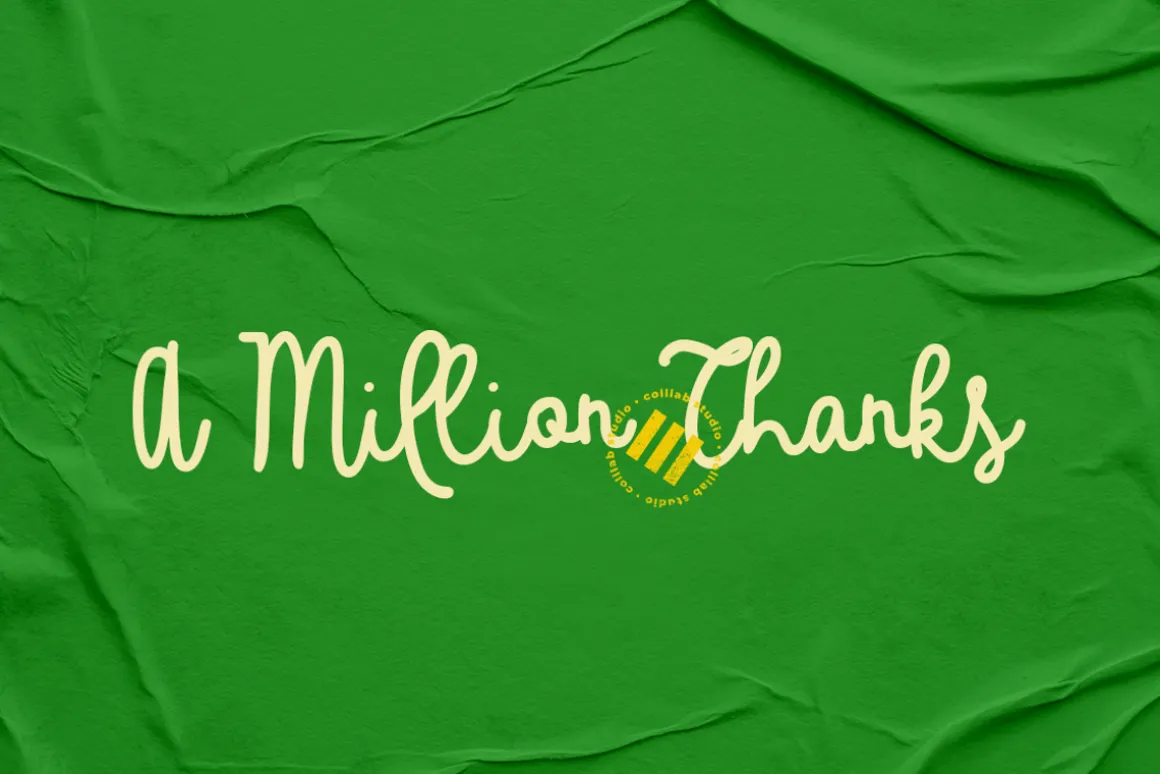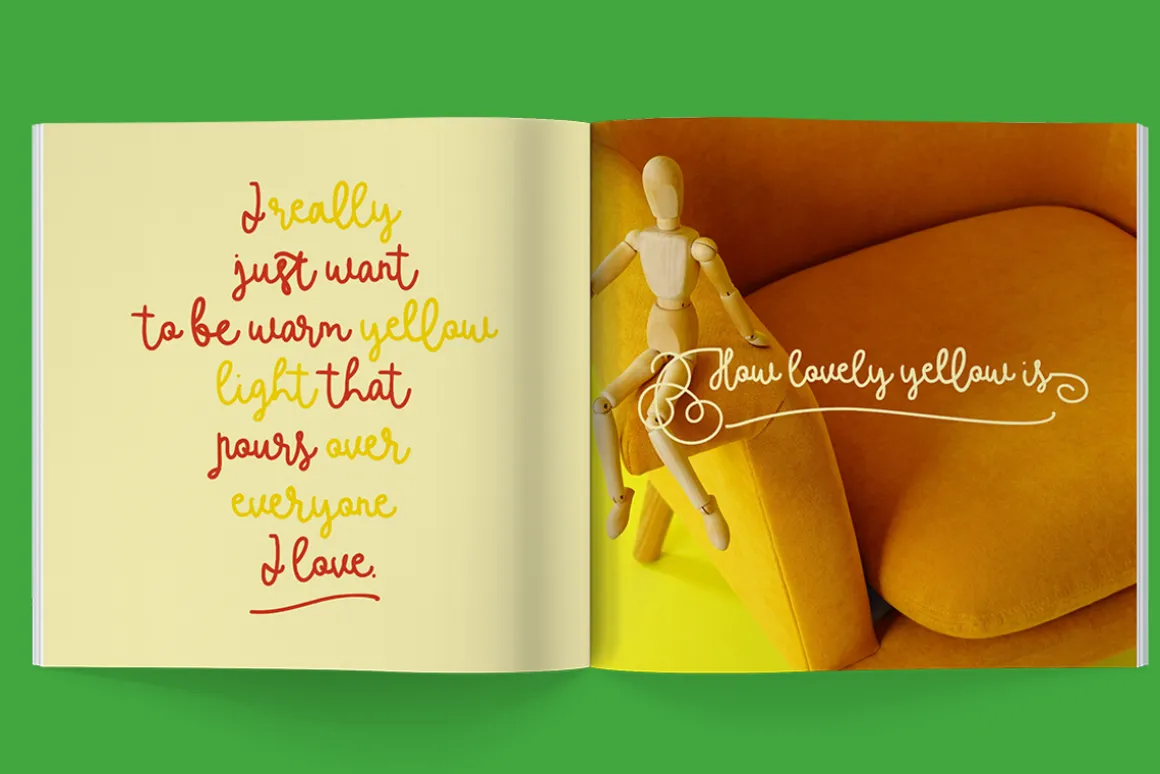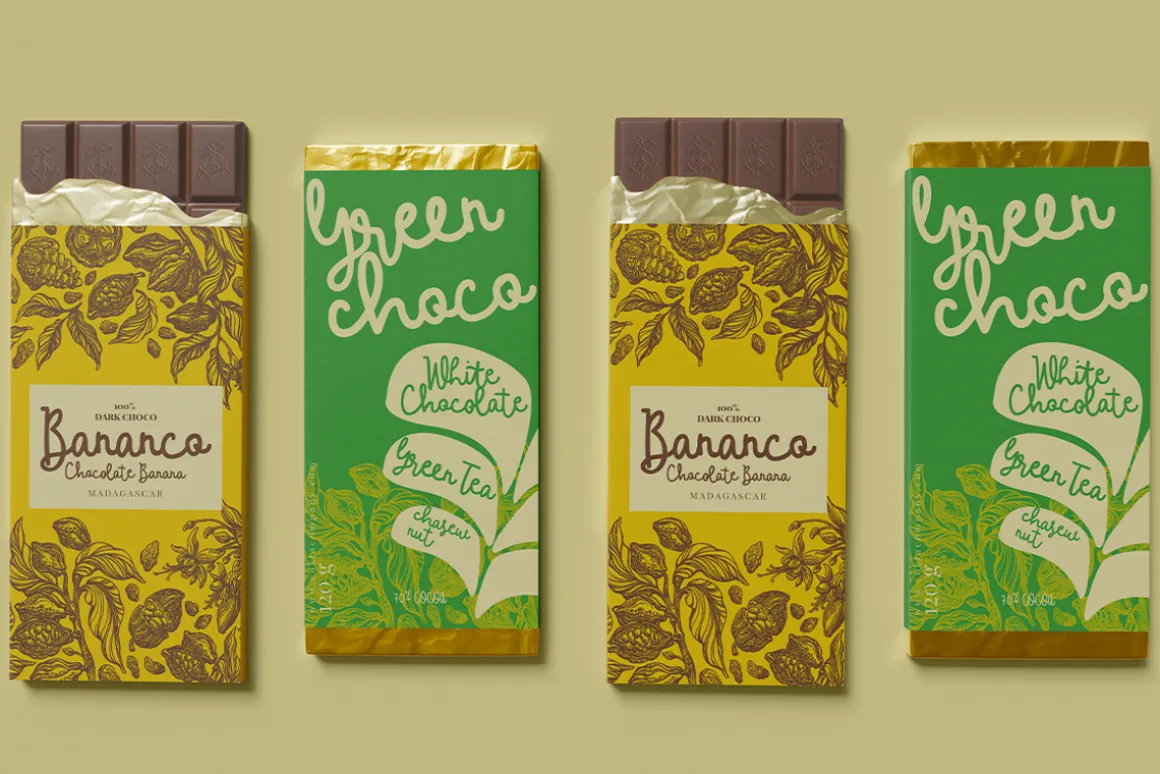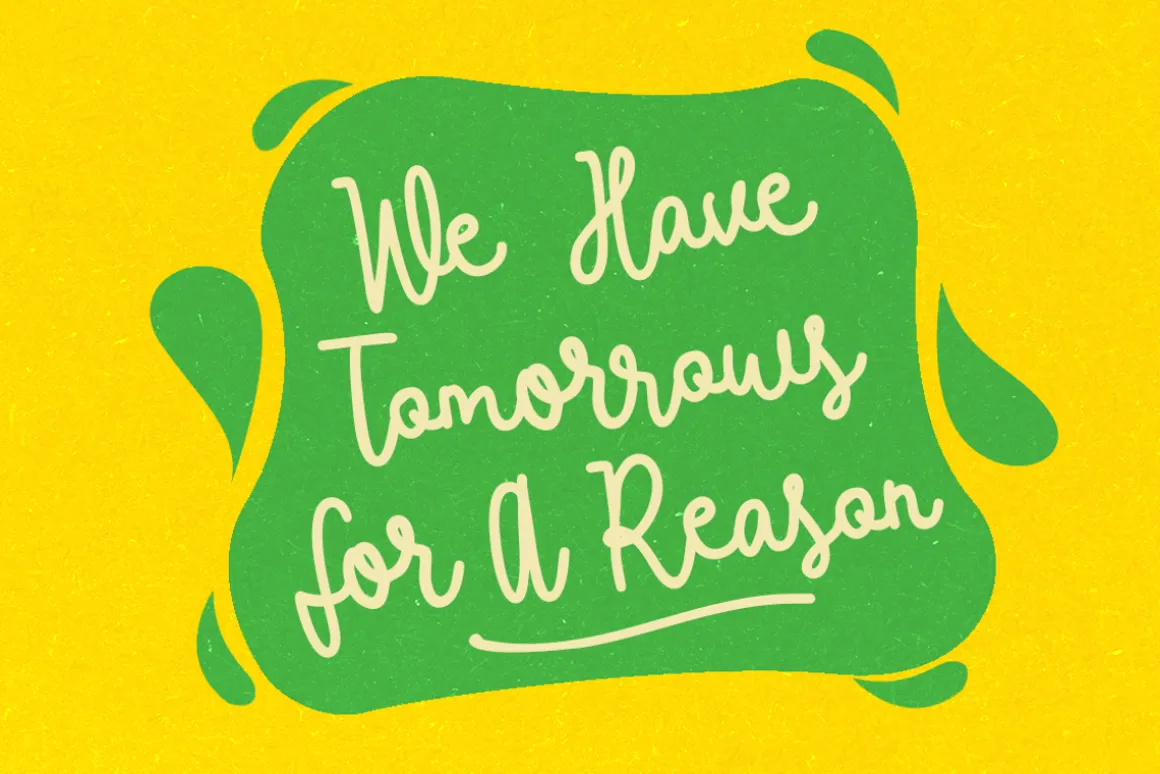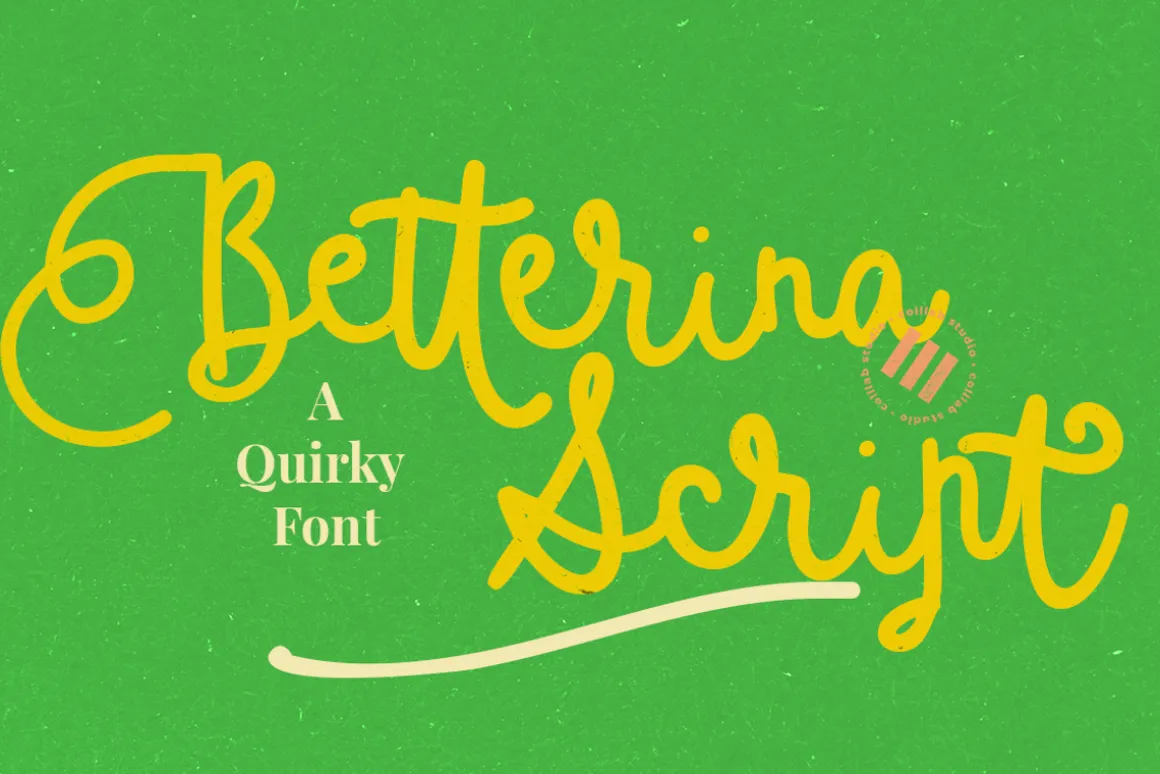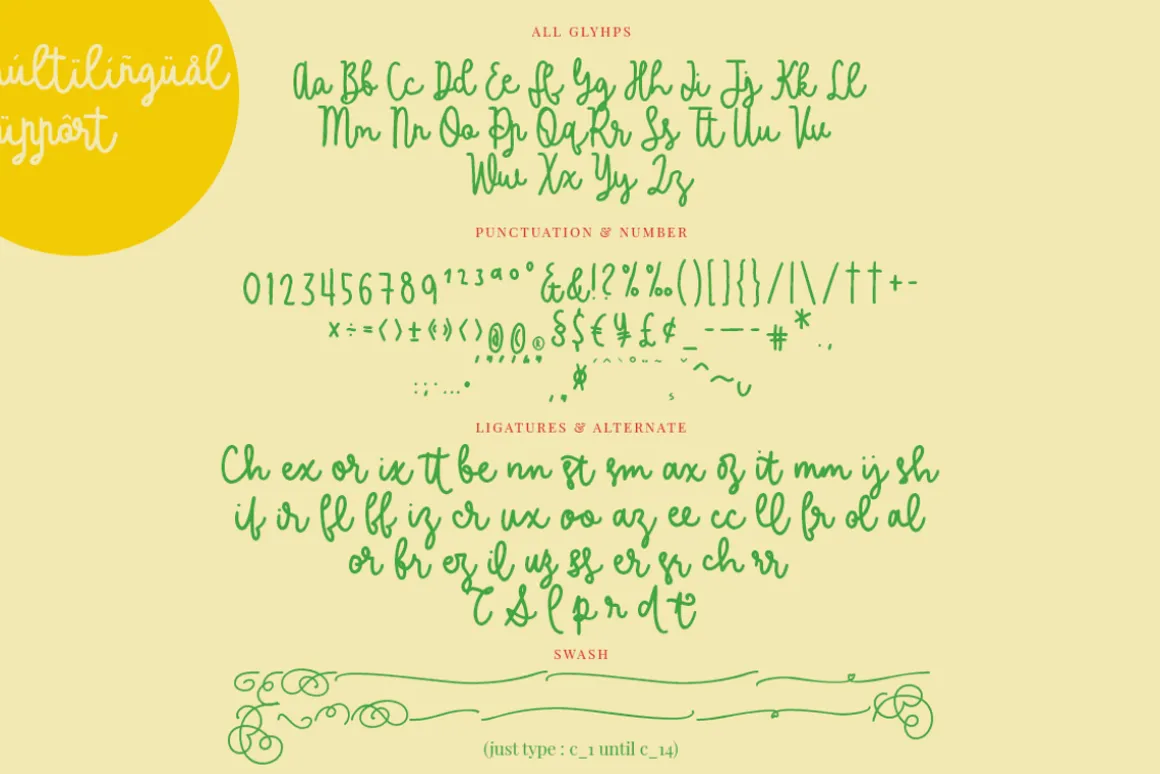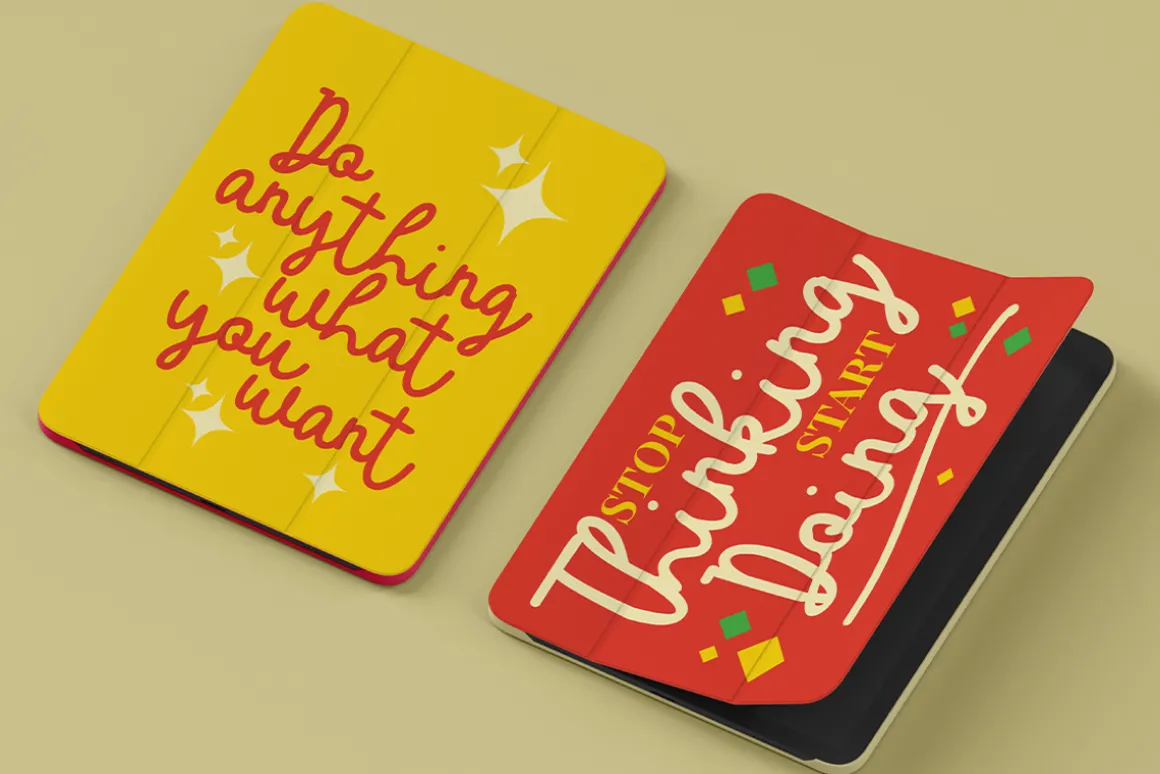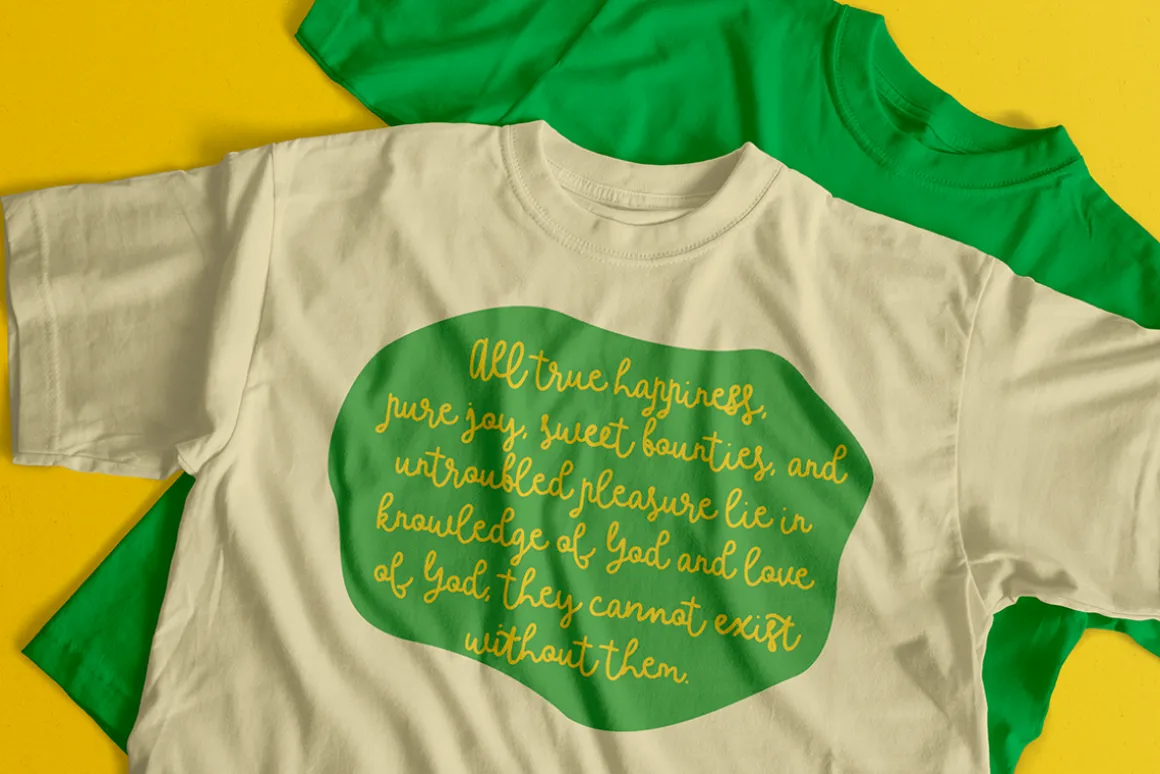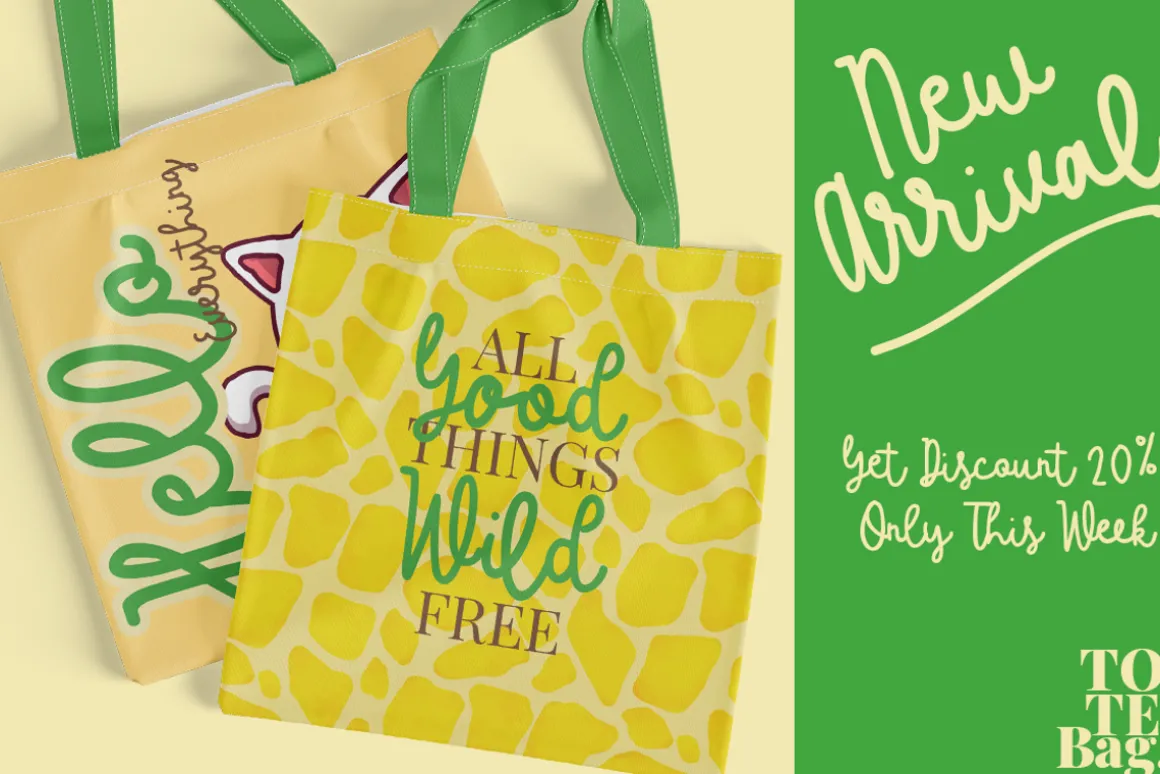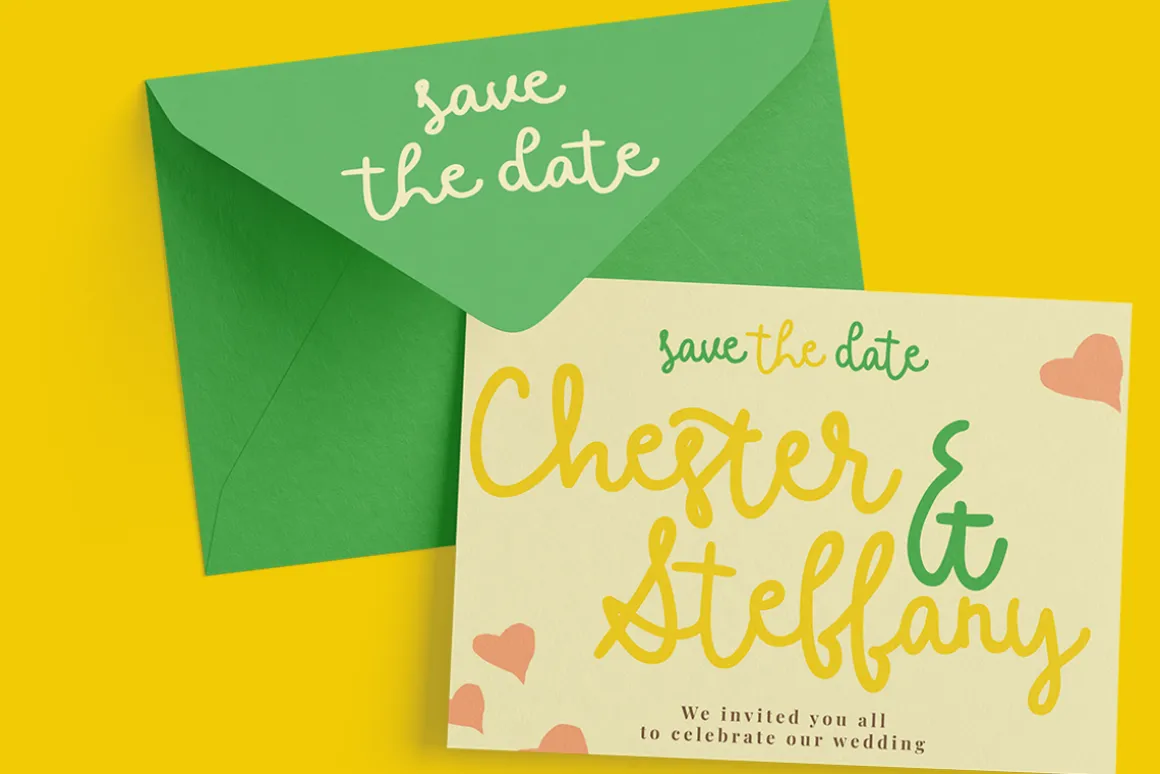
We are very excited to introduce you to Batterina Script. We believe design is a medium for communicating meaning and feeling into the world, and Batterina Script was created to do just that.
This font is perfect for logos, branding projects, packaging design, typographic quote designs for social media posts, websites, and more. It’s also great for invitations and other event stationery, cards, labels and more! It’s crafted with love and care by our most dedicated designers at Colllab Studio.
All characters have been PUA encoded, so you can get advanced access in any program you use. With 500+ glyphs and multilanguage support in 60+ languages, Batterina is truly versatile.
- 514 Glyphs,
- 40 + Ligatures & Swashes
- 13 Sets of Stylistic Alternates
- Multilanguage Support ( 64 Languages )
You might think, “How hard can it be to use the font swashes features?” The answer is: “Not very hard at all.” Using the font swashes features is as easy as 1, 2, 3! No, literally. It’s actually type c_1, c_2, c_3, etc.